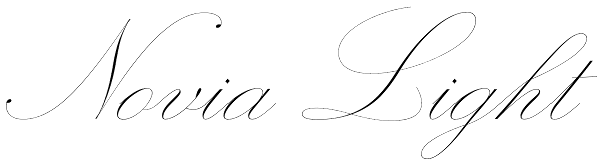
Novia
The English copperplate script came back into its own with the advent of photocomposition, then digital techniques. Gone are limitations on kerning and joining strokes imposed by the typefounders’ mold. In Novia Cyrus Highsmith has made the most of...